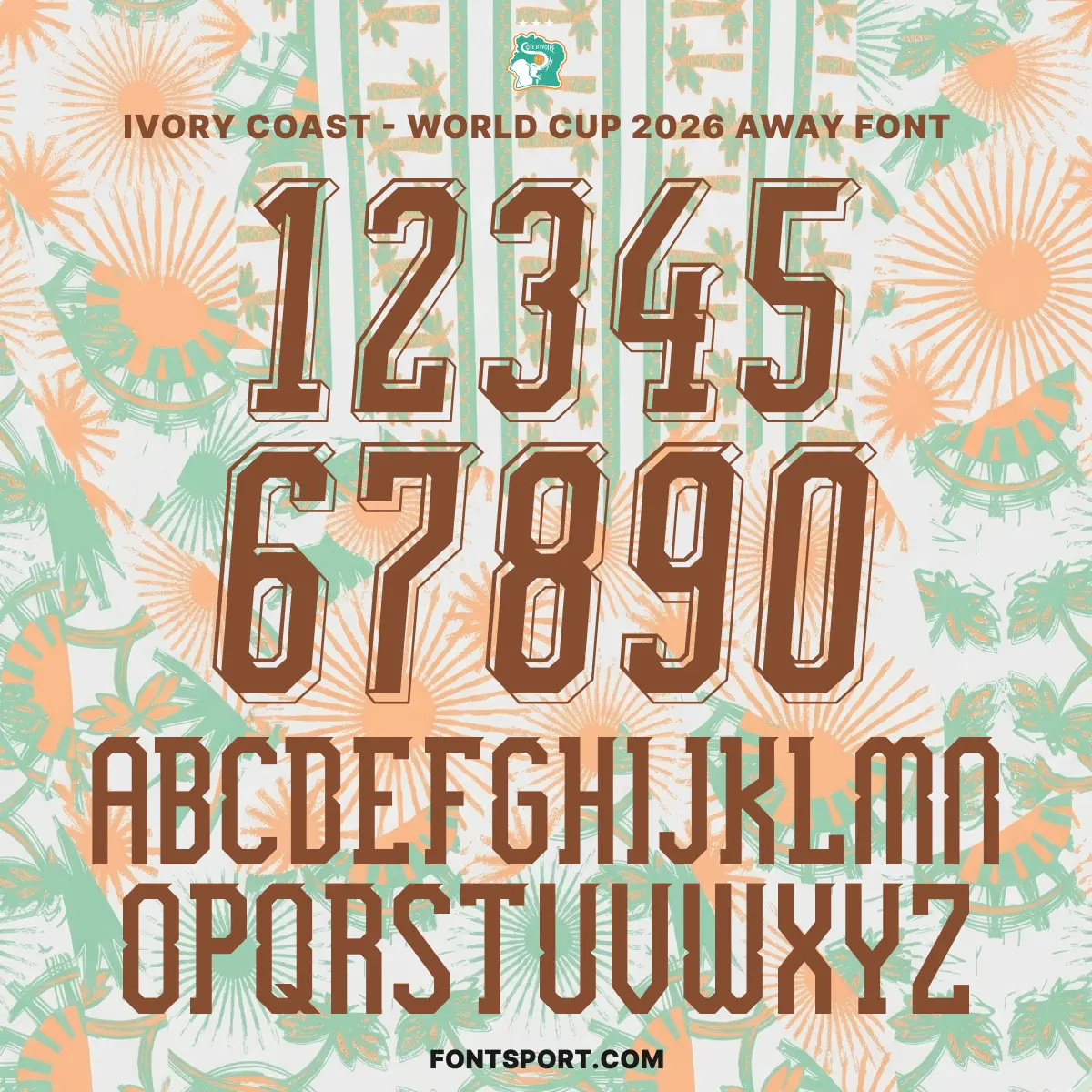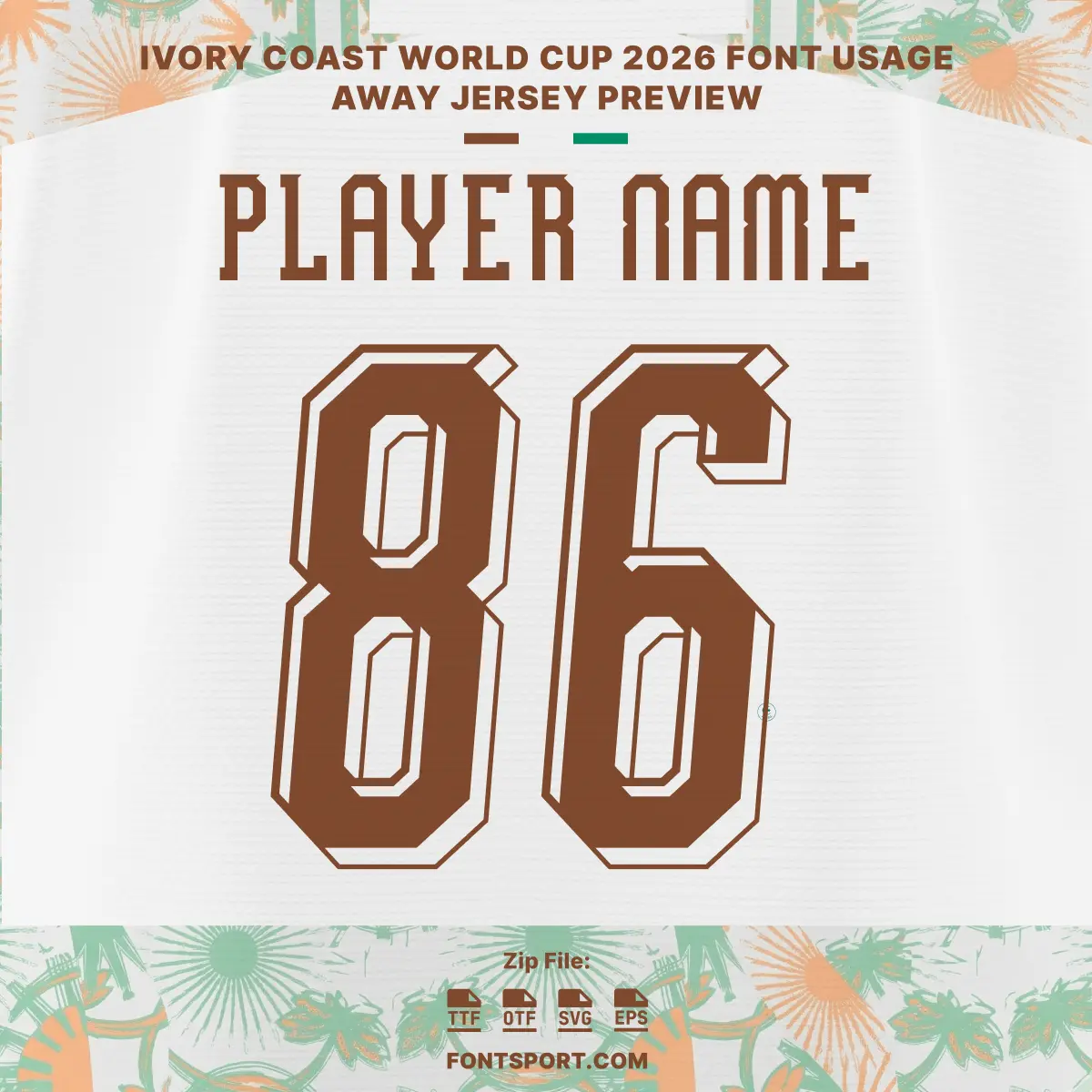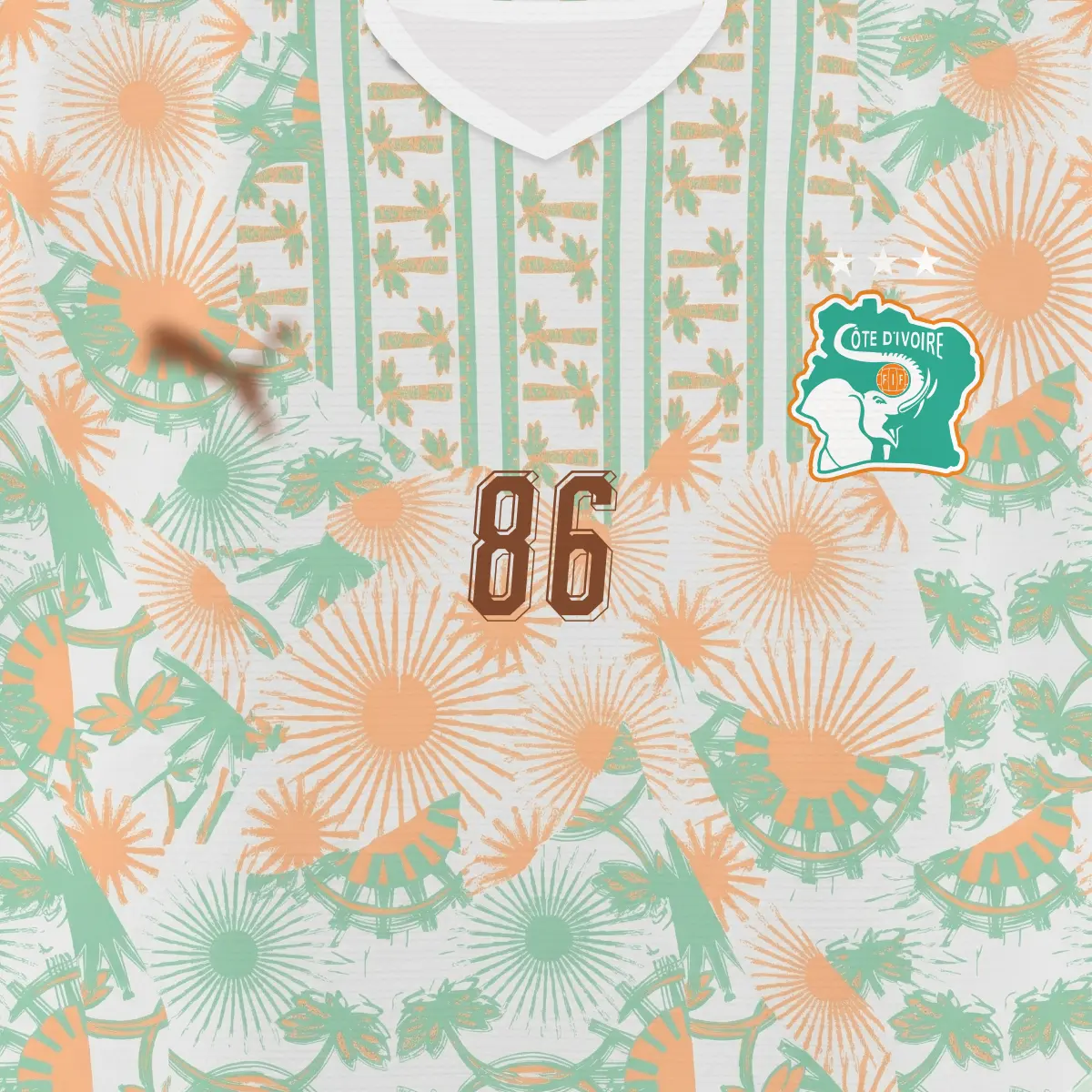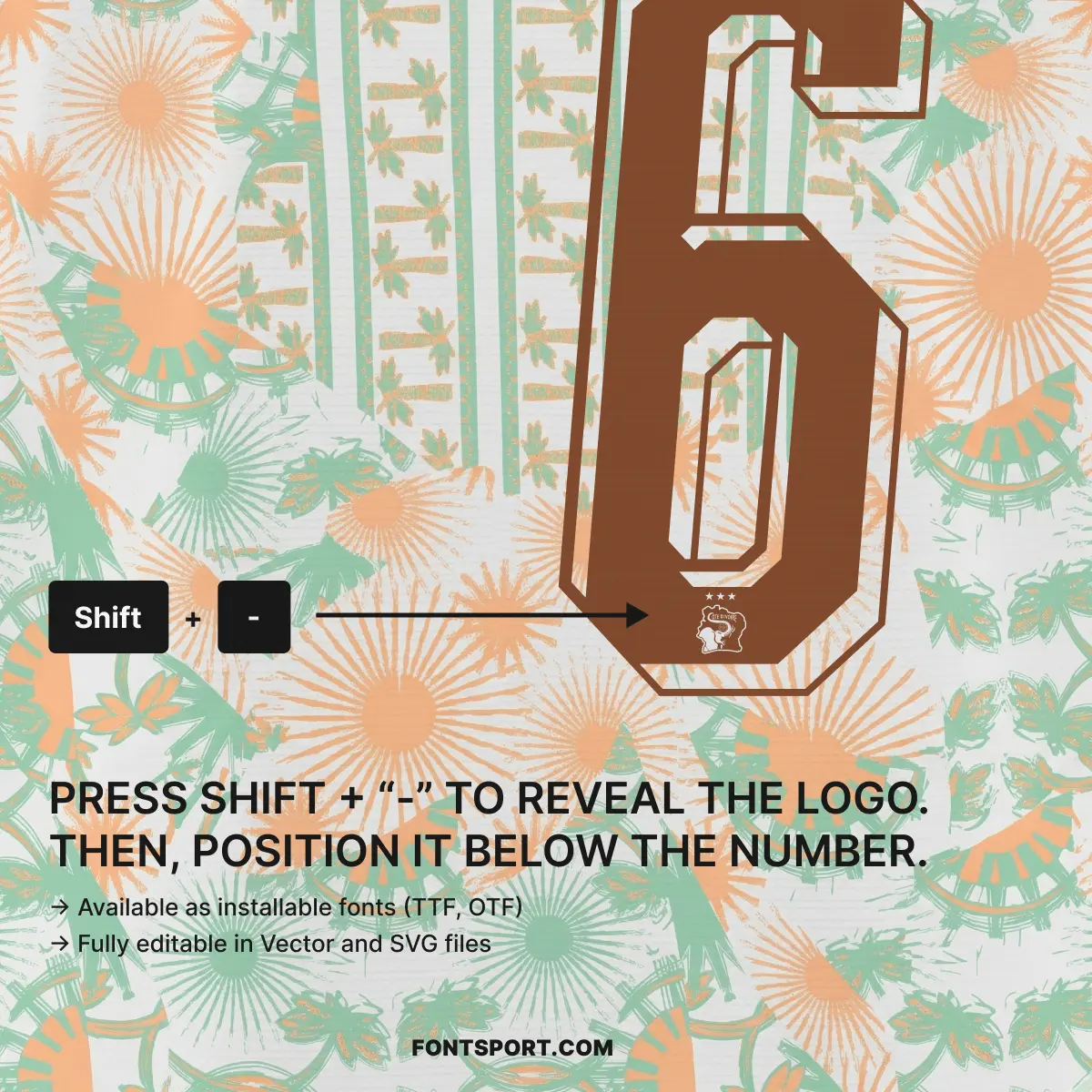
Ivory Coast World Cup 2026 Away Font Kit – Football Typeface
The Ivory Coast World Cup 2026 Away Font Kit captures the adventurous spirit and rich natural heritage of Côte d’Ivoire. This font is a key element of the official 2026 “Warm Chestnut” away collection by PUMA, designed to reflect a modernist, forward-looking aesthetic while honoring the nation’s roots. As the 2023 AFCON winners return to the World Cup stage for the first time in 12 years, this typeface stands as a bold symbol of Ivorian strength and resilience.
Complete Away Character Set: Features the clean, modern uppercase letters designed to contrast perfectly with the “PUMA White and Warm Chestnut” color palette.
Full 0–9 Number Set: Optimized for high visibility, mirroring the numbers that will be worn by stars like Amad Diallo and Seko Fofana in North America.
Extra Multilingual Alphabet: Full support for accented characters (Ä, Á, È, Î, Ë, etc.), ensuring you can accurately render names for an international roster.
Integrated Federation Identity: Add an authentic finish to your designs by revealing the official Ivory Coast-style logo typography through a simple keyboard shortcut.
This font kit is engineered for designers who want to bridge the gap between cultural storytelling and elite performance:
Flora & Fauna Inspiration: The typography is part of a bespoke design that features subtle illustrations of local Ivorian nature and rotated palm tree motifs.
Bespoke Modern Aesthetic: Designed to provide a “vibrant and bold” look that undoubtedly pops, moving away from standard templates.
Versatile Design Asset: An ideal font for jersey printing, sports branding, and team uniforms that require a “well-balanced and confident” look.